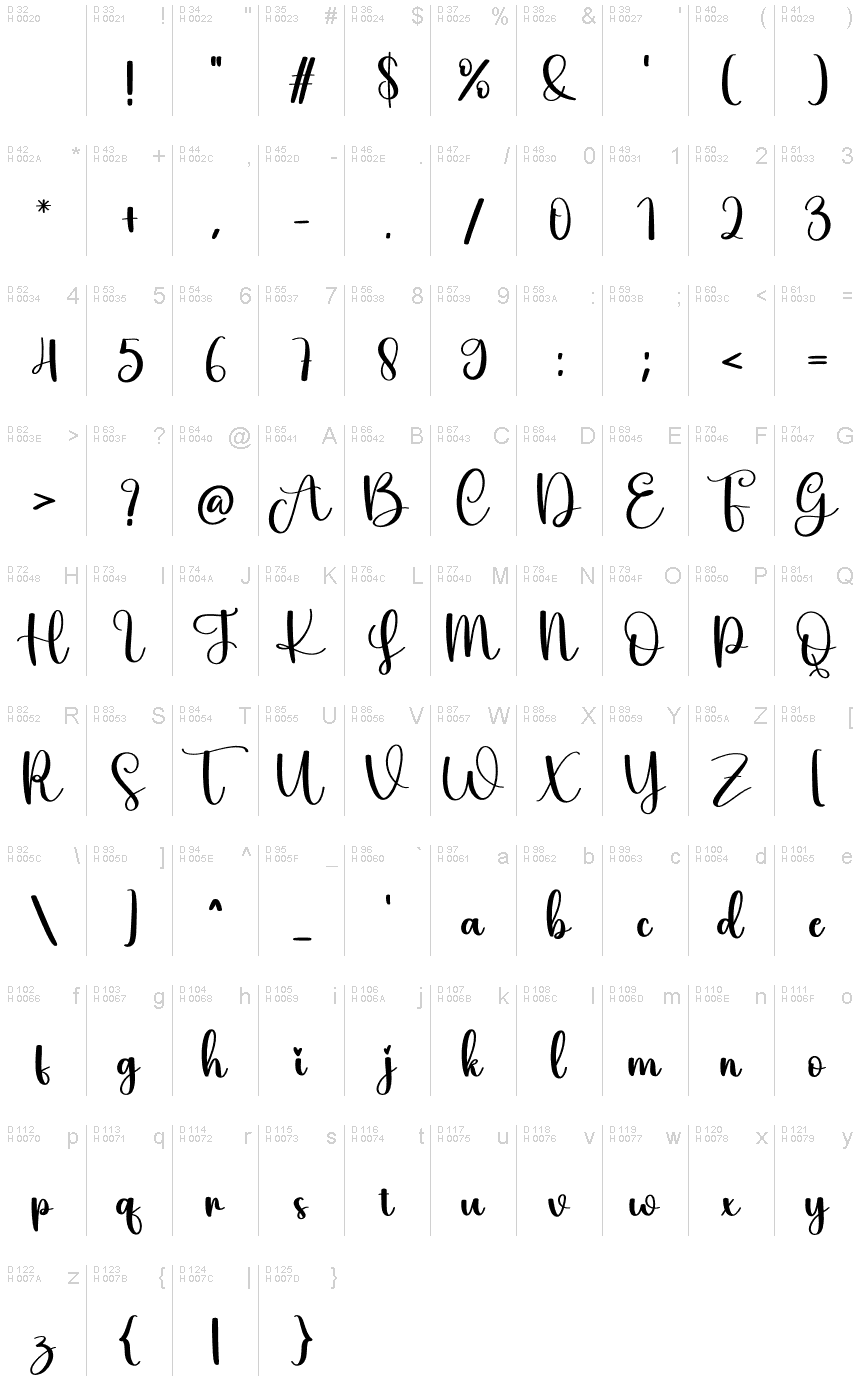
Hibis
Hibis, a captivating calligraphy font by scratchones, exudes elegance with its semi-light weight. Its fluid strokes and graceful curves make it perfect for projects that demand a touch of sophistication. Enhance wedding invitations, luxury branding, or high-end fashion magazines with this enchanting font. Its versatility allows it to effortlessly complement both digital and print designs. With Hibis, your creative possibilities are endless!
the latest style letters are perfect for wall displays, wedding invitations, social media post logos, advertisements, product packaging, product designs, labels, photography, watermarks, invitations, stationery, and any project that requires taste handwriting.